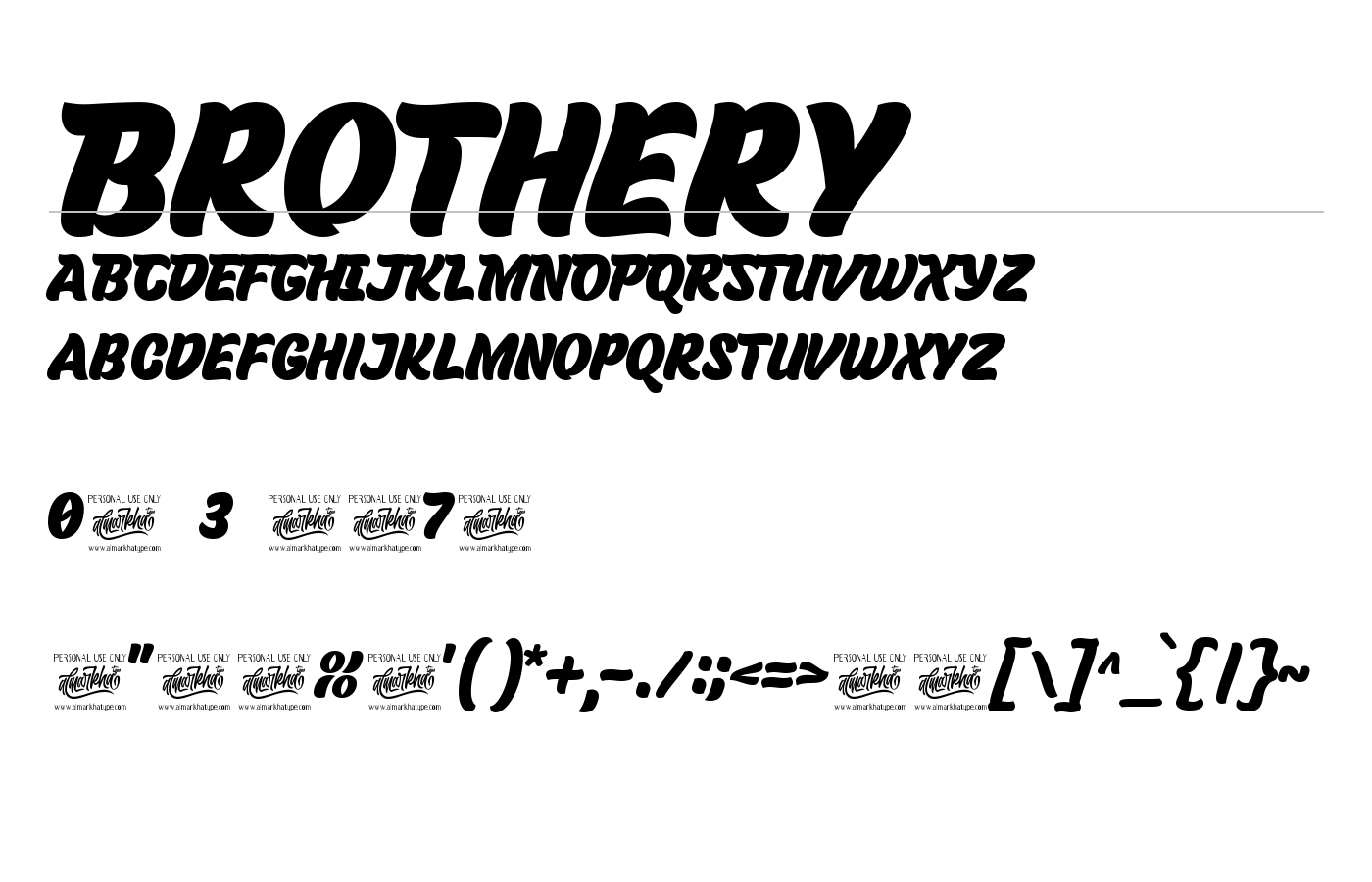
Brothery is a bold, playful script font characterized by its thick, rounded strokes and slightly condensed letterforms, giving it a lively yet compact appearance. Its smooth, flowing shapes with unique curves make it perfect for eye-catching headlines, branding, and packaging that aim to convey a friendly and informal vibe. This font works well for projects seeking a dynamic and approachable style with a touch of personality.
Brothery Font
About Brothery Font